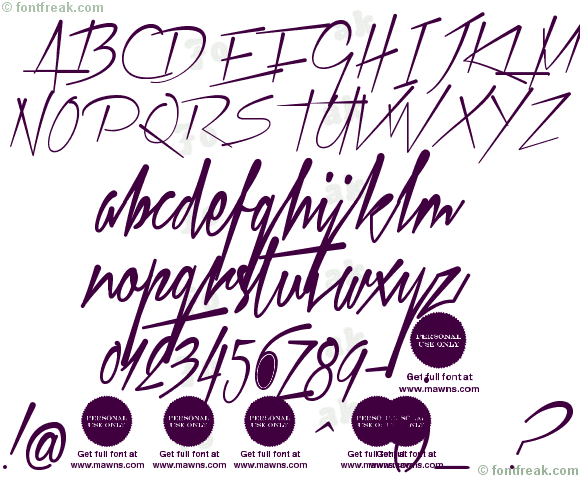
Xtreem Thin Demo
About Xtreem Thin Demo
The Xtreem Thin Demo font by Mans Greback is a captivating script typeface that exudes elegance and modernity. As a handwritten style font, it features a delicate stroke weight that gives it a unique lightness, making it visually appealing for various creative projects. The contrast between thin and slightly thicker strokes adds dynamism to the characters, while the open spacing enhances readability without sacrificing style. This font is characterized by its fluid, cursive forms that flow seamlessly, creating a sense of movement and sophistication.
Ideal for personal use, the Xtreem Thin Demo font is perfect for a variety of applications. It shines in wedding invitations, where its graceful letters can convey romance and intimacy. Additionally, this font is suitable for movie posters, lending a contemporary touch that can attract attention. Restaurant menus can benefit from its elegant script, providing a high-end feel that complements fine dining experiences. Furthermore, content creators looking to enhance their social media graphics will find this font an excellent choice for quotes or branding elements that require a personal touch.
Targeted towards graphic designers, small business owners, and content creators, the Xtreem Thin Demo font offers a versatile option for those seeking to elevate their visual communication. It captures the essence of modern typography while maintaining a personal feel, making it an excellent addition to any designer's toolkit.
In summary, what makes the Xtreem Thin Demo font stand out is its combination of elegance and versatility. Its unique handwritten style, coupled with its lightweight strokes, allows it to adapt to various design needs, making it a valuable resource for anyone looking to make a memorable impression. For those interested, the Xtreem Thin Demo font free download is available, providing an opportunity to explore its potential in your projects.